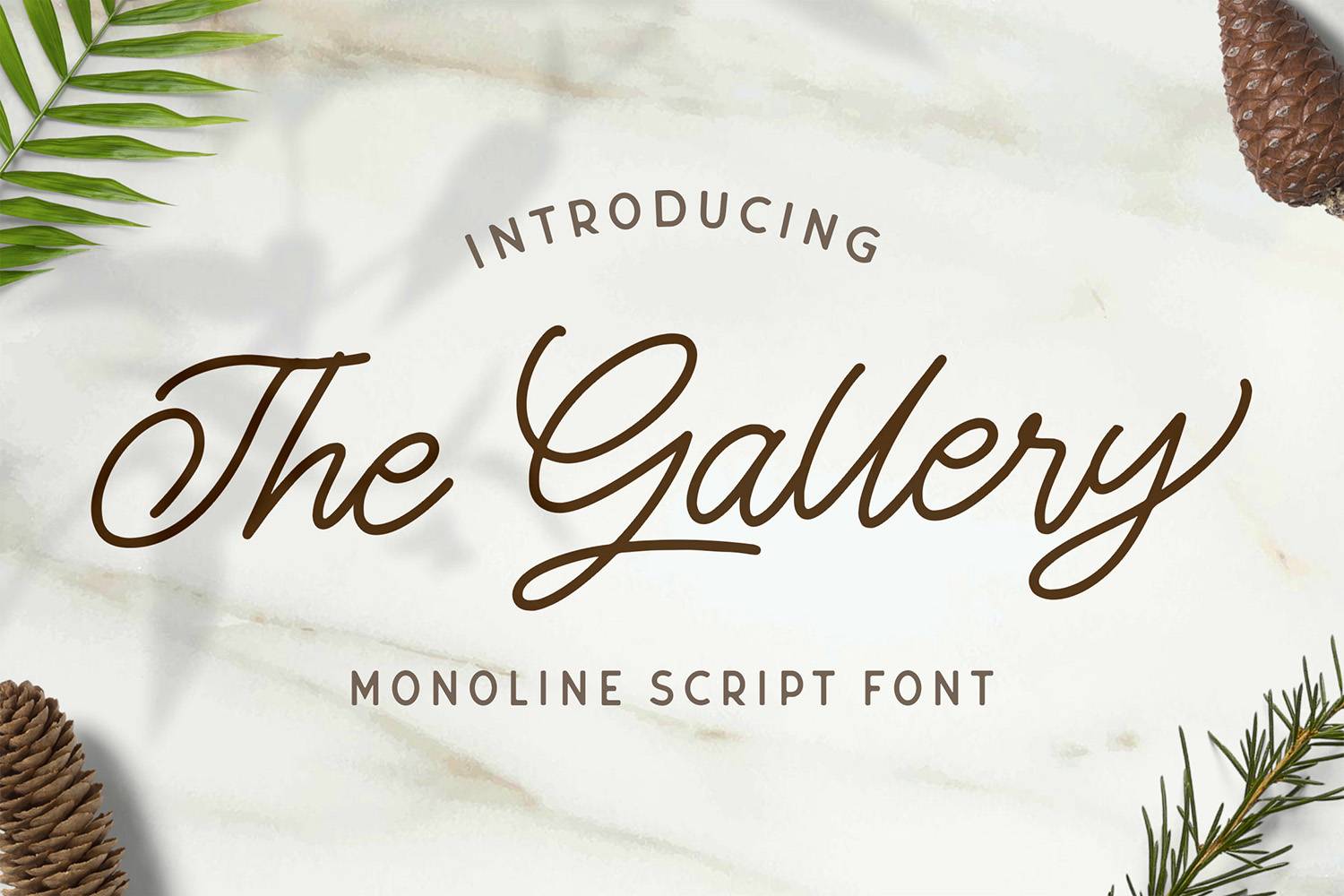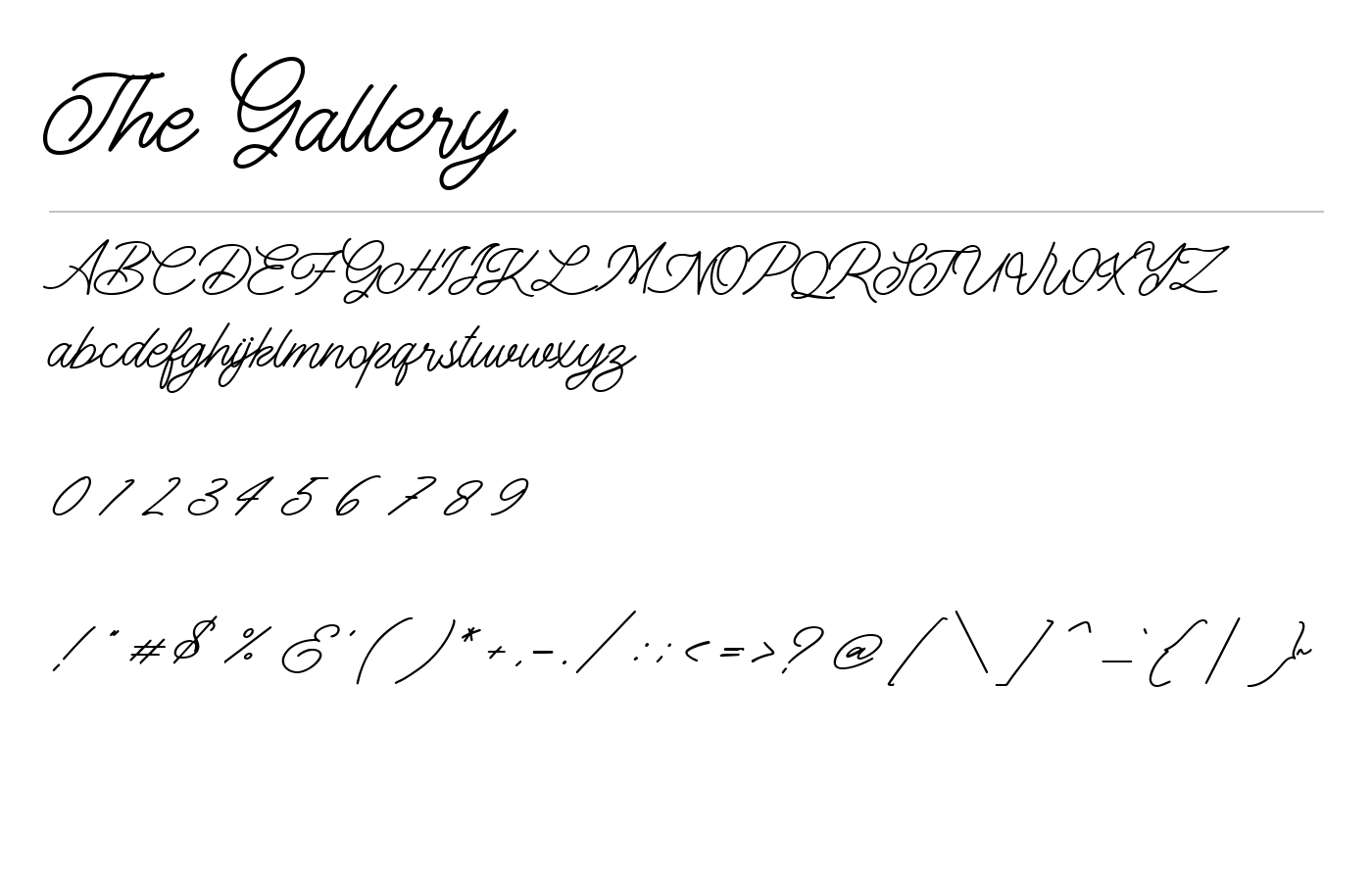
The Gallery Font is an elegant, lightweight script font with delicate, flowing strokes that evoke a sophisticated and graceful feel. Its fine, cursive letterforms, combined with smooth connections and a slightly condensed width, make it perfect for luxury branding, invitations, and artistic projects that require a refined, personal touch. This font works best in headlines or decorative text settings where its stylish, handwritten charm can truly stand out.
The Gallery Font
About The Gallery Font
| Designer | StringLabs |